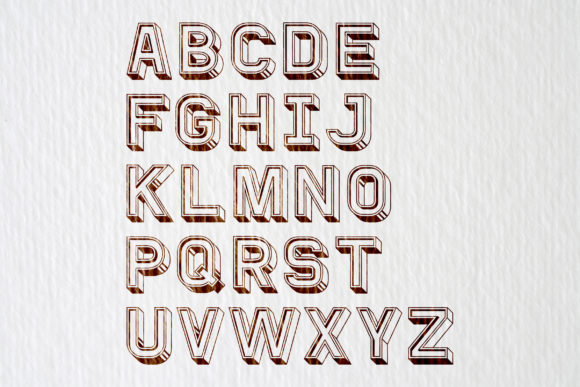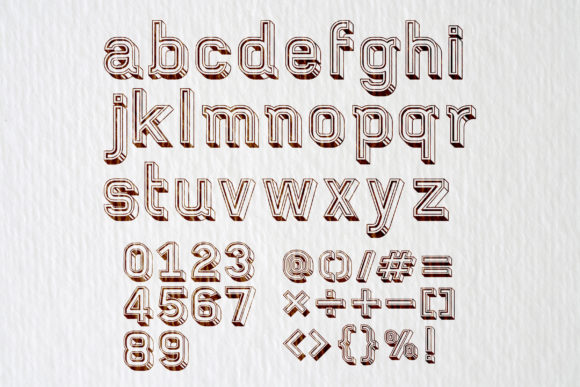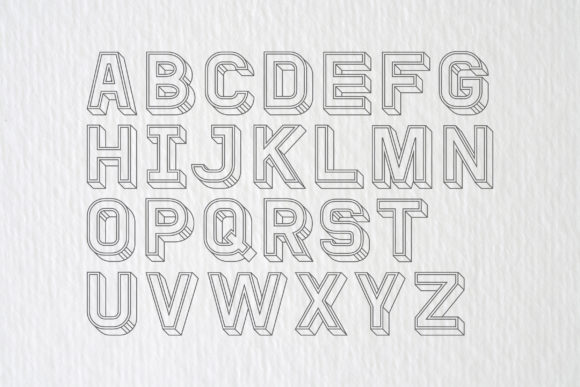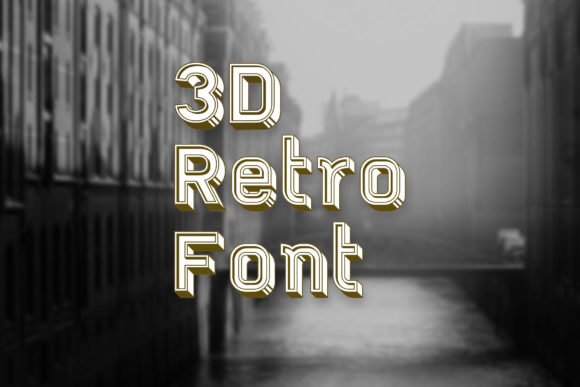
Introduction to 3d Retro Font
3d Retro is an awesome 3D display font that will fit perfectly on each of your designs.
Have fun with this beautiful font and explore its endless variations .